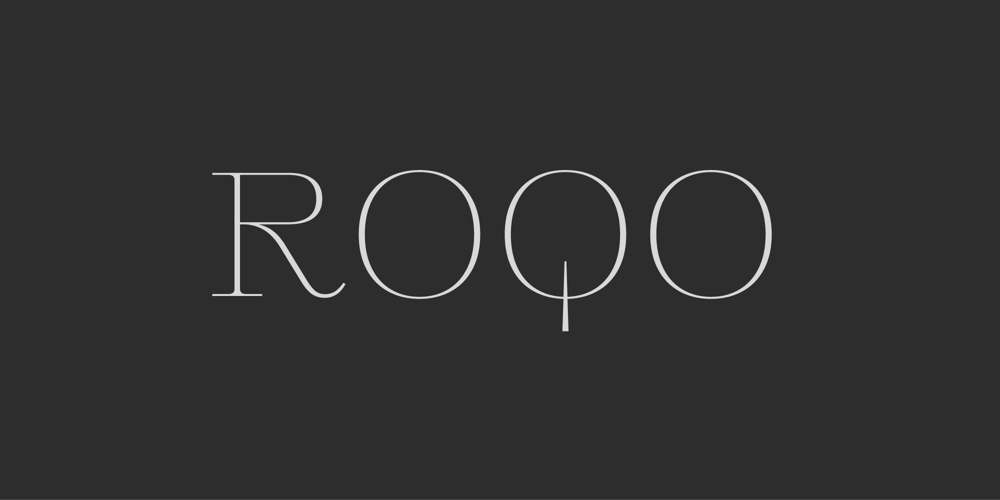
Roqo Font Family was designed by Kristof Van Proeyen and published by Punch. Roqo contains 49 styles and family package options. Roqo is an AllCaps Serif Font Family that comes in 48 styles (6 weights, 4 widths & 2 different optical sizes) and/or as 1 Variable Font. It embodies both soft & sharp features, to emphasize its neutral, open-minded personality. With its wide range of styles, it is a great all-in-one collection for your (sub)titling, and because of the different upper- and lowercase height, it can also be of perfect use in SmallCaps texts. Experimenting with font settings, font sizes & tracking, it creates real eye-catchers. Combining Roqo with easygoing Sans typefaces, it can give your design a modern and crisp contrast.Roqo comes in separate files or different family packages: Complete Family Single Variable Font Multiple bundles / weight Multiple bundles / width